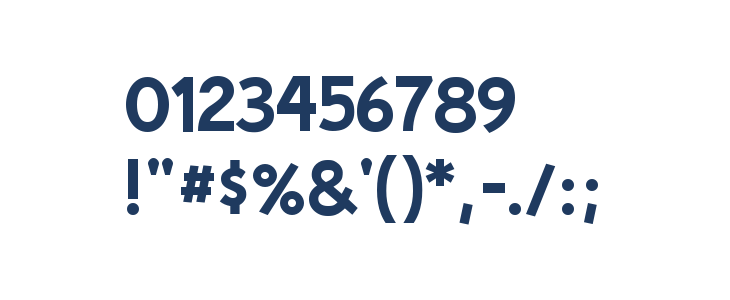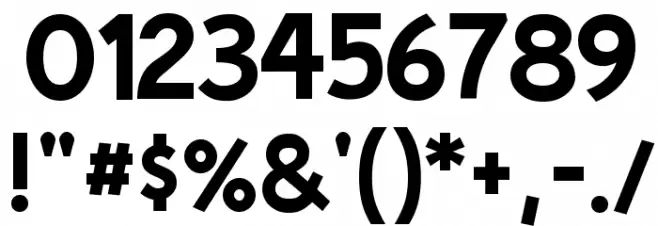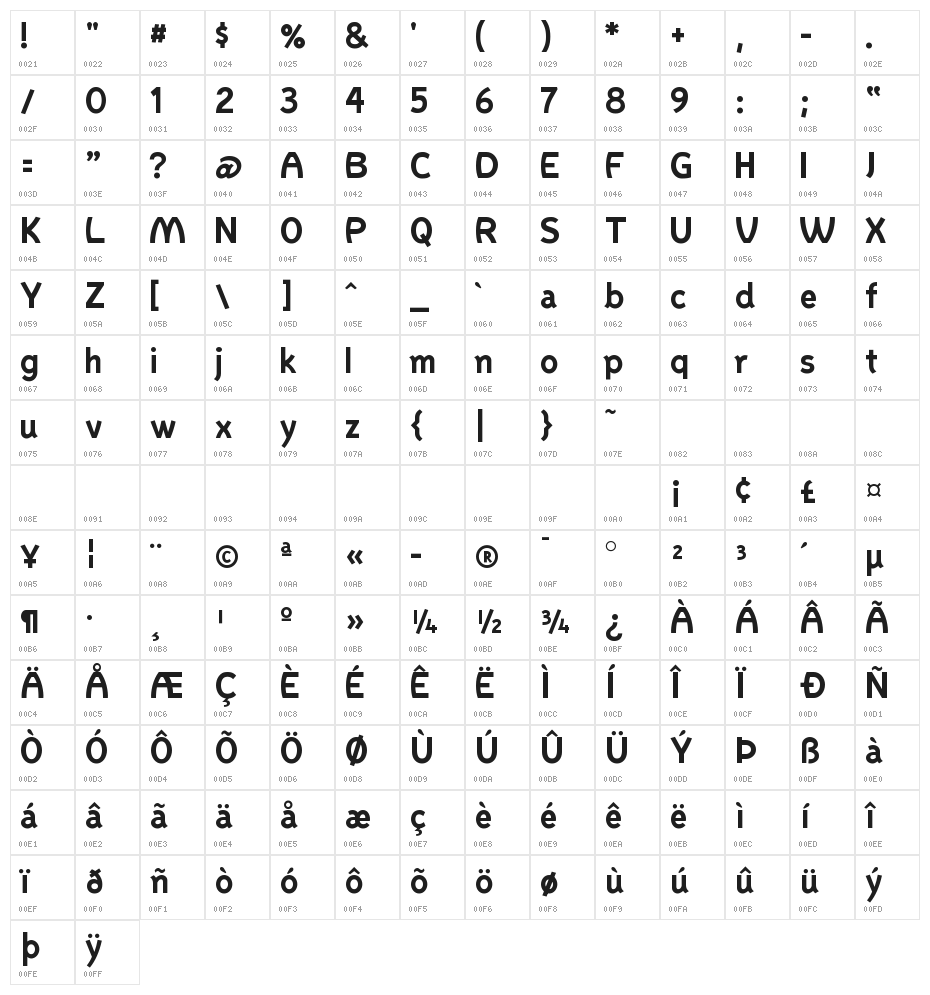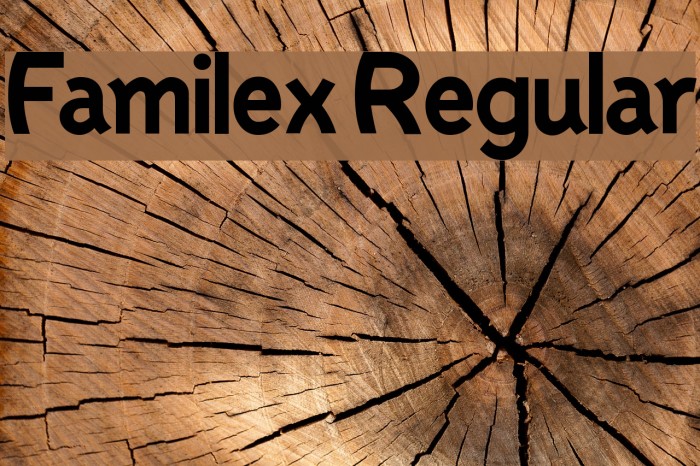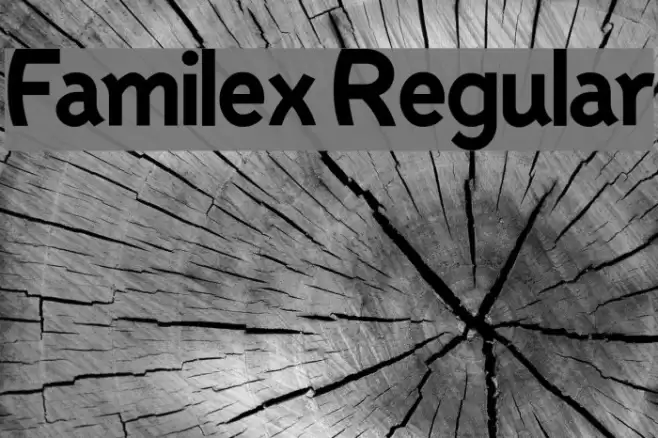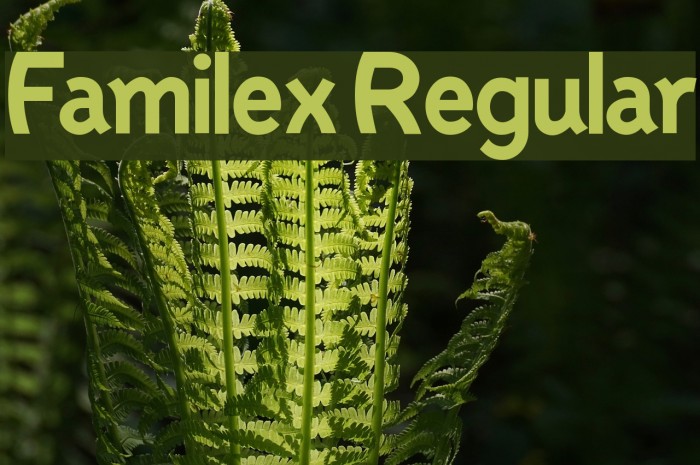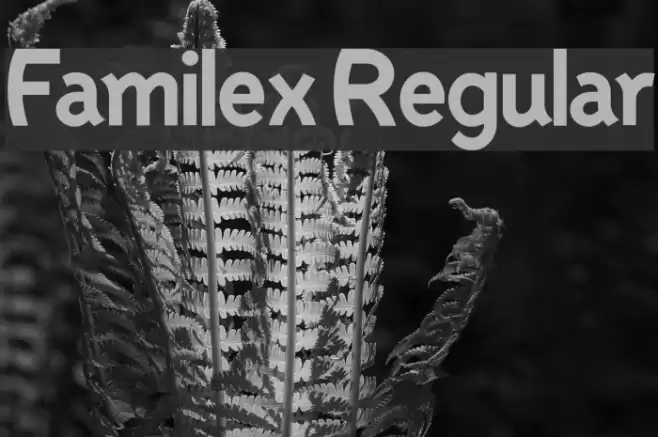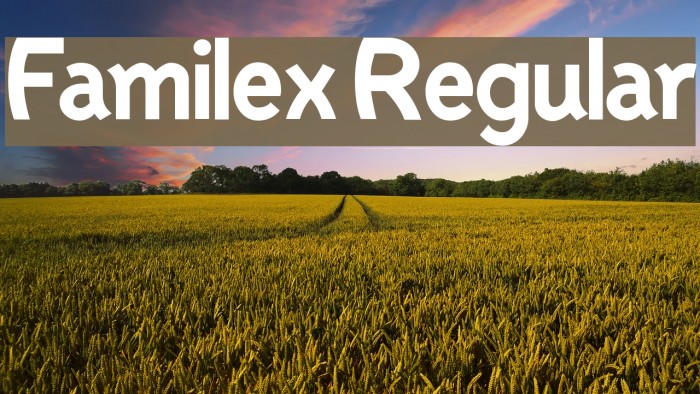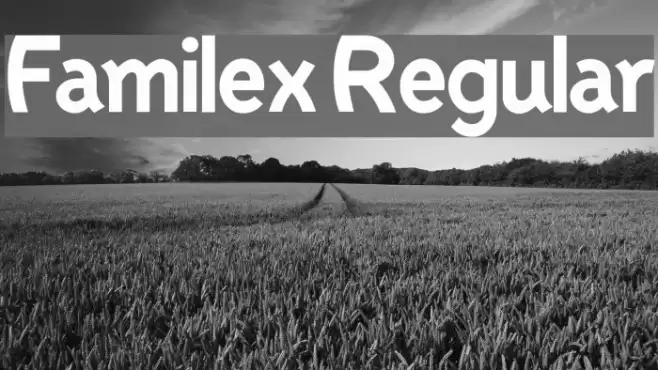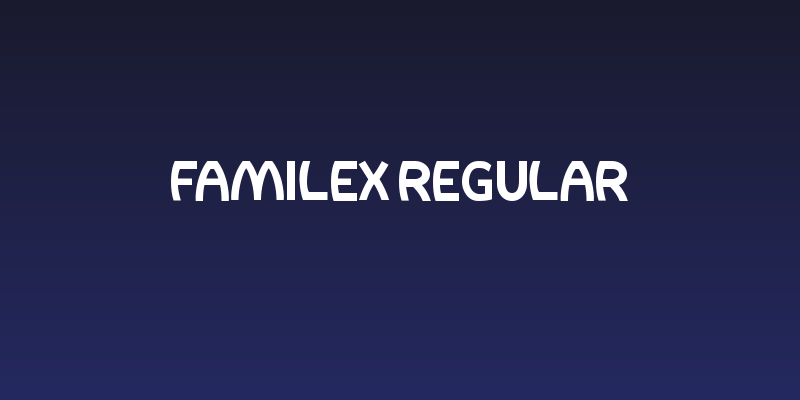
Familex Regular Font
Familex Regular Description
This font features a bold and modern sans-serif style with clean lines and a strong presence. The uppercase letters are slightly condensed, giving a compact and efficient look, while the lowercase letters maintain a balanced and harmonious appearance. The numerals are clear and easy to read, making them suitable for various applications. Special characters are well-defined, ensuring versatility in design projects. The overall design is straightforward yet impactful, making it ideal for contemporary branding and advertising.